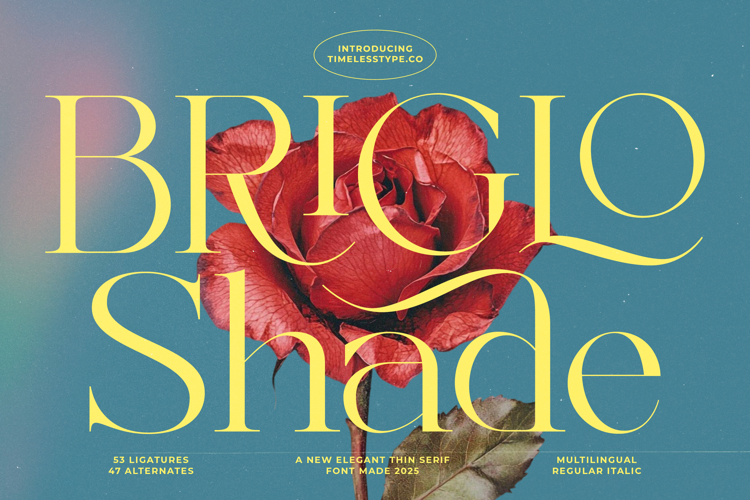
Briglo Shade - Elegant Thin Serif Font
The Briglo Shade Typeface is an elegant thin serif font designed to embody refinement, modern luxury, and timeless artistry. With 53 ligatures and 47 stylistic alternates, this font provides designers with a highly versatile toolkit to craft graceful and unique typographic expressions. Its thin strokes, elongated forms, and sweeping curves create a sophisticated rhythm, making it perfect for projects that require both delicacy and high visual impact. Briglo Shade is especially suited for designs that aim to blend fashion-forward aesthetics with classic elegance.
This font is particularly effective for editorial design, enhancing magazine layouts, feature headlines, and book covers with its polished and stylish look. Its alternates and ligatures add variety, allowing text to feel personalized and visually captivating in every composition.
In branding and identity, Briglo Shade is ideal for luxury logos, fashion houses, jewelry, cosmetics, and lifestyle products. Its thin yet bold design communicates exclusivity and refinement, ensuring that logos and packaging exude elegance and premium quality.